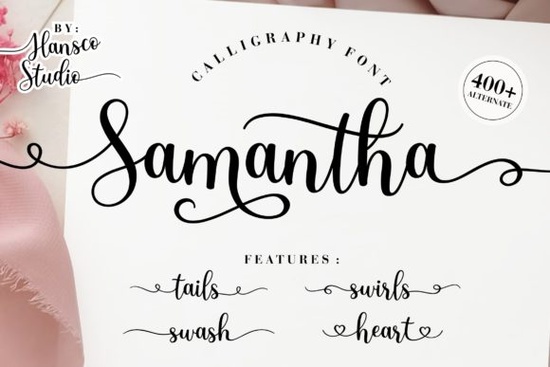
If you're looking for a clean, modern script font that works just as well on social media posts as it does on hand-lettered greeting cards or printable wall art, the Samantha Calligraphy Font is a thoughtful, well-crafted choice. It’s not overly ornate no dramatic flourishes that distract from readability but it carries enough elegance to feel intentional and personal. Designed with digital and print use in mind, it’s especially helpful if you’ve ever struggled with fonts that look great in previews but fall apart when resized or layered in Canva or Illustrator.
What makes Samantha Calligraphy easy to use?
One practical detail many designers overlook until they’re deep into a project: PUA encoding. That means every alternate glyph, swash, and stylistic variation is accessible without installing extra files or switching between character maps. You’ll find connecting letters, subtle entry/exit strokes, and optional ligatures right where you expect them in your font menu or glyph panel. No guesswork, no workarounds.
This kind of reliability matters most when you’re juggling multiple client requests or batch-creating POD products like mugs, tote bags, or wedding stationery. You want consistency across sizes and formats and Samantha Calligraphy Font delivers that without requiring advanced typography knowledge.
Where does it fit alongside other popular script fonts?
It sits comfortably between playful and refined more relaxed than This Mate Font, but less formal than Clover Fields Font. If you love the flow of Gardenia Font but need something slightly more neutral for branding, Samantha fills that gap. And while Sweet Honey Font leans sweet and whimsical, Samantha keeps things grounded ideal for small businesses wanting approachable yet polished typography.
For crafters using Cricut or Silhouette, the clean outlines and consistent spacing mean fewer cut-line adjustments. For Instagram creators, it scales well in Stories and feed posts especially when paired with a simple sans-serif for contrast. Even if you’re new to pairing fonts, this one plays nicely with common system fonts like Inter, Montserrat, or even basic Helvetica.
Real-world uses that actually work
- Print-on-demand labels and tags Its legibility at small sizes (down to 10–12 pt) makes it usable on product hangtags or packaging without blurring or jagged edges.
- DIY wedding invites and place cards The subtle swashes add personality without overwhelming delicate paper textures or foil accents.
- Small business branding elements Think logo lockups, social bios, or email headers where you want warmth but not informality.
- Etsy shop banners and digital downloads Works cleanly on light and dark backgrounds alike, thanks to balanced stroke contrast.
You’ll also appreciate how little time it takes to learn. Unlike some calligraphy fonts with dozens of context-sensitive alternates, Samantha offers just enough variation to keep text feeling hand-drawn without forcing you to memorize keystrokes or toggle layers. It’s designed to support your workflow, not complicate it.
How it compares to rhinestone or decorative script fonts
Fonts like RS01 Cursiva Rhinestone Template are built for sparkle and impact perfect for t-shirt designs or glitter overlays. Samantha doesn’t try to compete there. Instead, it focuses on quiet confidence: smooth curves, even rhythm, and graceful spacing. Think of it as the font you reach for when you want people to notice the message first and the typeface second.
That doesn’t mean it lacks personality. The lowercase “g,” “y,” and “f” have gentle descenders; the uppercase “S” and “Q” include soft, purposeful swashes. But nothing feels forced or fussy. It’s the kind of font that looks like it belongs whether you’re designing a minimalist coffee shop menu or a heartfelt baby announcement.
A quick checklist before downloading
- You need a script font that stays readable at small sizes and on low-res screens.
- You prefer intuitive access to alternates no complex OpenType features required.
- Your projects span both digital (social graphics, emails) and physical (prints, vinyl cuts, embroidery).
- You already use fonts like This Mate or Gardenia and want something with similar warmth but more versatility.
- You’re not trying to mimic traditional copperplate or dip-pen calligraphy you want modern elegance, not historical accuracy.
If those match your needs, Samantha Calligraphy is worth adding to your working toolkit. It won’t replace every script font you own but it will likely become the one you open first when you need something that just works.